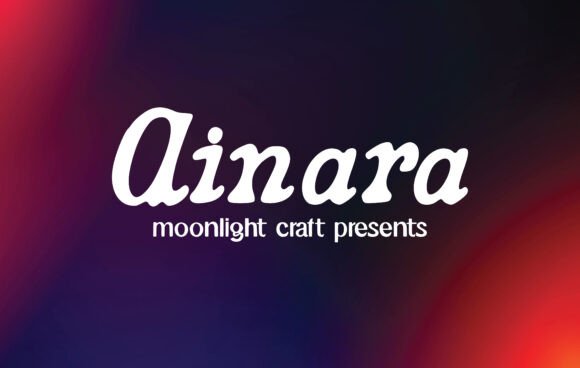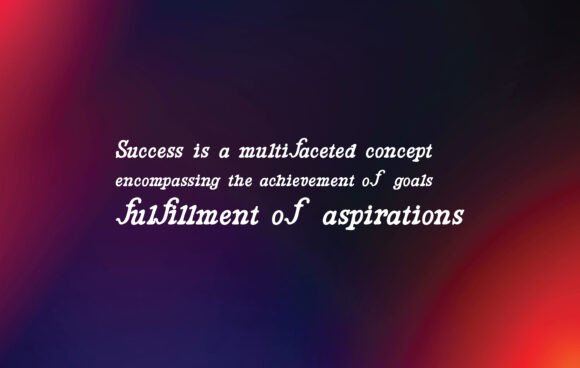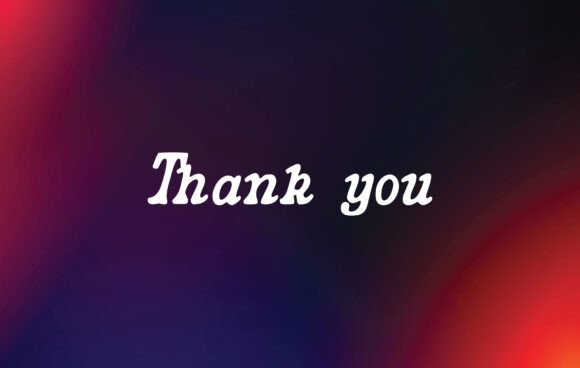
Ainara Font
About the Ainara Font
Let us introduce you to Ainara Font, where timeless design meets modern craftsmanship. Ainara is a lovely and beautiful handwritten font.This font has the potential to take your creative ideas to the highest level.It is the best choice for creating eye catching logos, branding and quotes.
Ainara’s flowing, handwritten style is ideal for logos, branding projects emphasizing a personal touch, short quotes on social media, and elegant invitations. It works particularly well in headlines and short, impactful text snippets where its unique character can shine.
However, Ainara’s delicate strokes are not suited for body text or long paragraphs; its readability suffers at smaller sizes. Avoid using it in user interfaces or situations requiring high legibility.
Pairing Ainara with a clean sans-serif like Montserrat for body copy creates a strong contrast, balancing its hand-drawn charm with modern clarity. Alternatively, a classic serif such as Garamond could provide a sophisticated and timeless feel. For a bolder contrast, a geometric sans-serif like Futura would create a strong visual dynamic. Ainara’s overall personality is elegant and friendly, yet expressive.